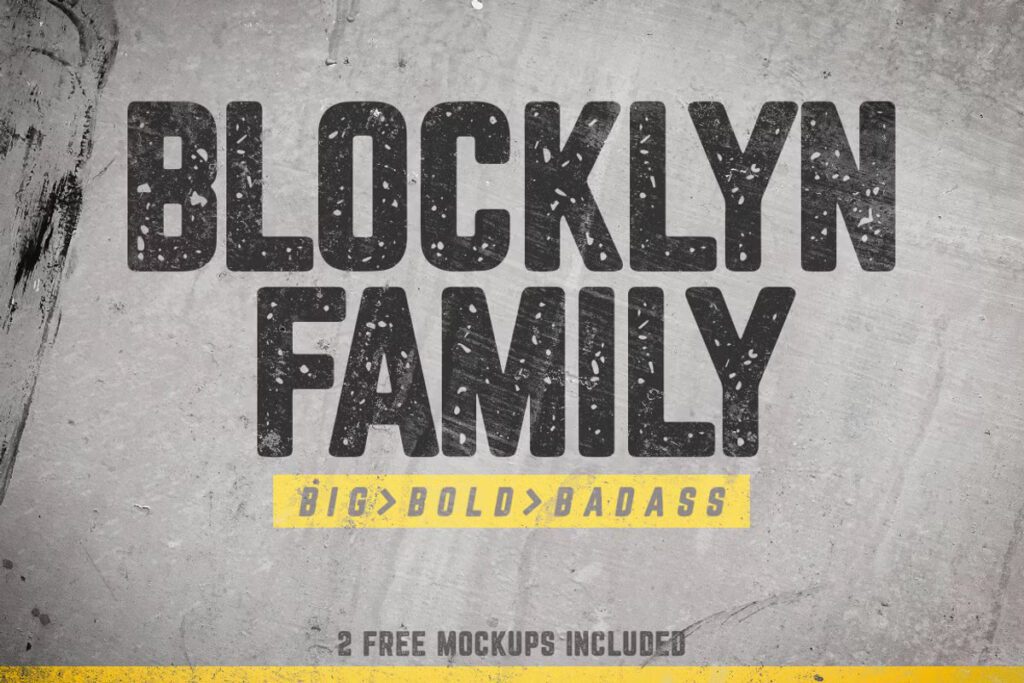
Blocklyn Font Family: Bold, Versatile, and Ready for Action
If you’re in need of a bold and powerful typeface that can adapt to various design styles, look no further than the Blocklyn Font Family. With its big, badass aesthetic, Blocklyn is ideal for creating strong, impactful designs while maintaining versatility for both masculine and feminine projects. This comprehensive font family includes four fonts: Condensed, Condensed Italic, Grunge, and Grunge Italic, giving you the tools to make a statement in any project, from print to web.
Why Choose Blocklyn Font Family?
The Blocklyn Font Family is designed to bring energy and edge to your designs, whether you’re working on posters, logos, or even website design. This typeface shines through with its powerful, condensed forms and added grunge textures for a rough, rebellious feel. Whether you prefer a clean condensed look or something with a gritty edge, Blocklyn’s options ensure you can create something striking every time.
Key Features of Blocklyn:
Four Fonts in One Family: The font family includes Condensed, Condensed Italic, Grunge, and Grunge Italic, giving you the flexibility to choose between clean and gritty styles.
Extended Latin Characters: Support for standard and extended Latin characters ensures compatibility for a wide range of languages.
Numbers & Symbols: Along with letters, Blocklyn includes numbers and symbols, making it suitable for professional use in any project.
Best Uses for Blocklyn Font Family:
Posters and Flyers: The bold, condensed style of Blocklyn makes it perfect for creating attention-grabbing posters, flyers, and event promotions.
Logos and Branding: Whether you’re designing a logo for a hardcore brand or a grungy apparel line, Blocklyn adds strength and character to your identity.
Editorial and Print Design: Use Blocklyn in editorial layouts, magazine covers, or product packaging for a bold and cohesive look.
Web Design: With webfonts included, Blocklyn is an excellent choice for adding a bold, edgy look to your website’s typography.